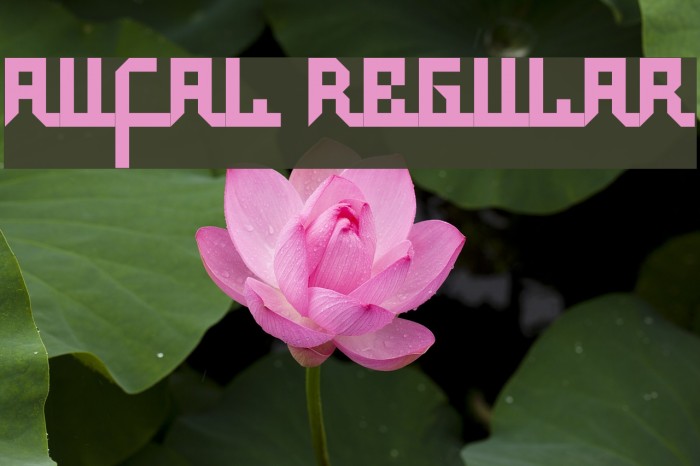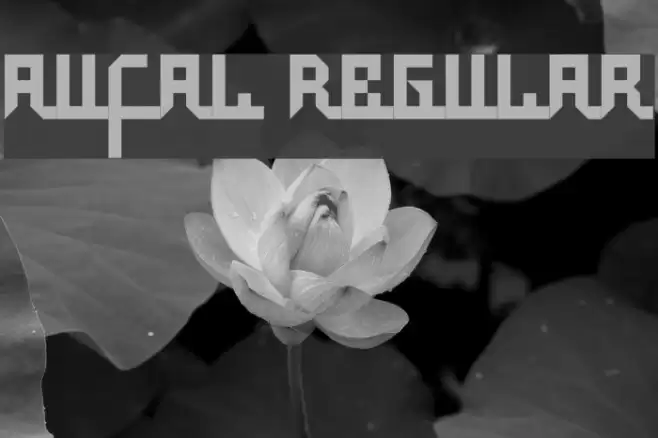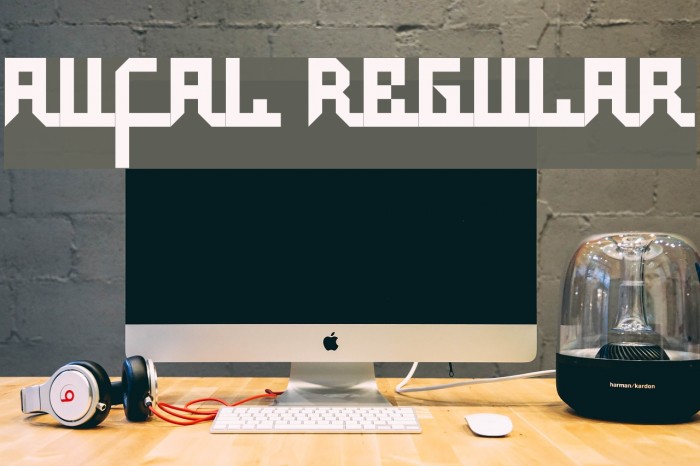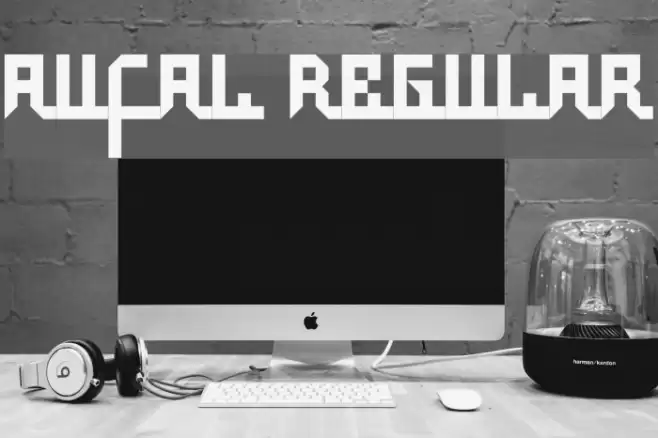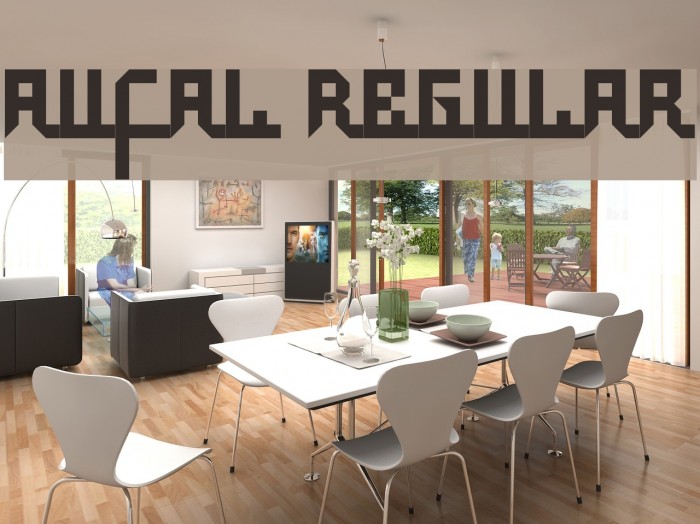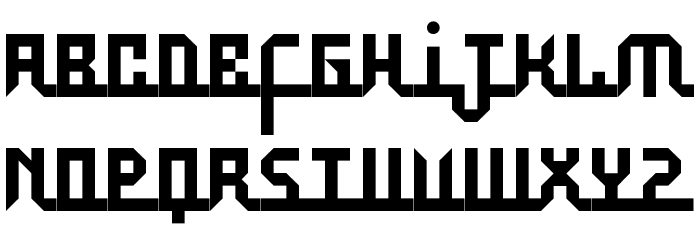
Aufal Regular Font
Aufal Regular Description
This font features a bold and geometric design with a distinctly modern and futuristic aesthetic. The characters are constructed with thick, uniform strokes that create a blocky, angular appearance. Each letter and number is composed of straight lines and sharp angles, giving the font a digital or technological feel. The uppercase and lowercase letters maintain a consistent style, with minimal variation in stroke width, contributing to a cohesive and structured look. The special characters are designed to match the overall aesthetic, ensuring uniformity across all elements. This font is highly legible and makes a strong visual impact, ideal for projects that require a bold and assertive typeface.
| Proposed Projects | Ideal for technology branding, digital media, video game titles, and futuristic-themed designs. |